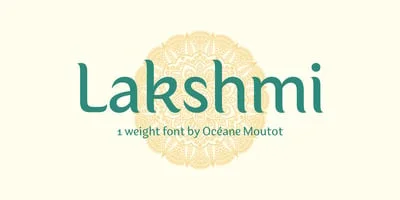
Lakshmi Font
The Lakshmi Font is a stunning and elegant typeface that brings a touch of grace and sophistication to any design project. Imagine its beautiful forms adorning luxury product packaging, lending an air of exclusivity to high-end branding and corporate identities, or creating captivating headlines for fashion magazines and editorial layouts. Its refined aesthetic also makes it an excellent choice for wedding stationery, sophisticated website designs, book covers, and even artistic digital art pieces. Whether your goal is to convey opulence, tradition, or a delicate artistic flair, Lakshmi Font delivers with its unique character, ensuring your visuals leave a memorable and distinguished impression.
What makes Lakshmi Font so exciting is its unique blend of traditional elegance and modern versatility. It captures a sense of timeless beauty while remaining perfectly suited for contemporary design trends. In a crowded digital landscape, a font that can command attention with its intricate yet readable letterforms is invaluable. Lakshmi Font offers designers the opportunity to infuse their work with a distinct personality that is both aesthetically pleasing and highly functional. It’s more than just a typeface; it’s a design element that elevates the entire project, adding depth and a refined sensibility that speaks volumes about the quality and care put into the creation.
The Lakshmi Font family is typically designed to offer a rich variety of styles, allowing for extensive creative freedom. Beyond the foundational Lakshmi Regular, you might find elegant variations such as Lakshmi Thin for a delicate touch, a more impactful Lakshmi Bold for emphasis, or a flowing Lakshmi Italic for added flair. Some comprehensive families may even include decorative alternates, ligatures, or extended character sets that further enhance its artistic potential. These diverse family members ensure that designers can craft intricate typographic compositions, creating a harmonious and visually compelling hierarchy across all elements of their design, from grand titles to subtle details.